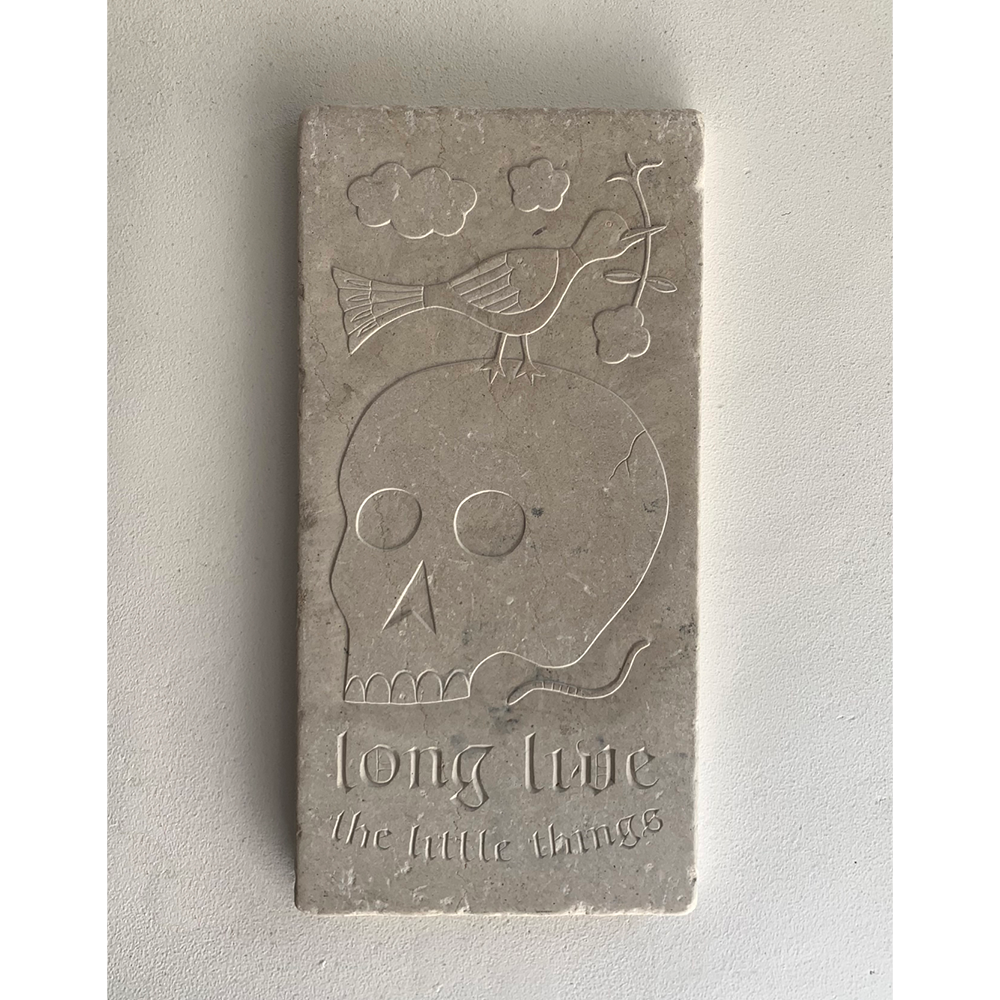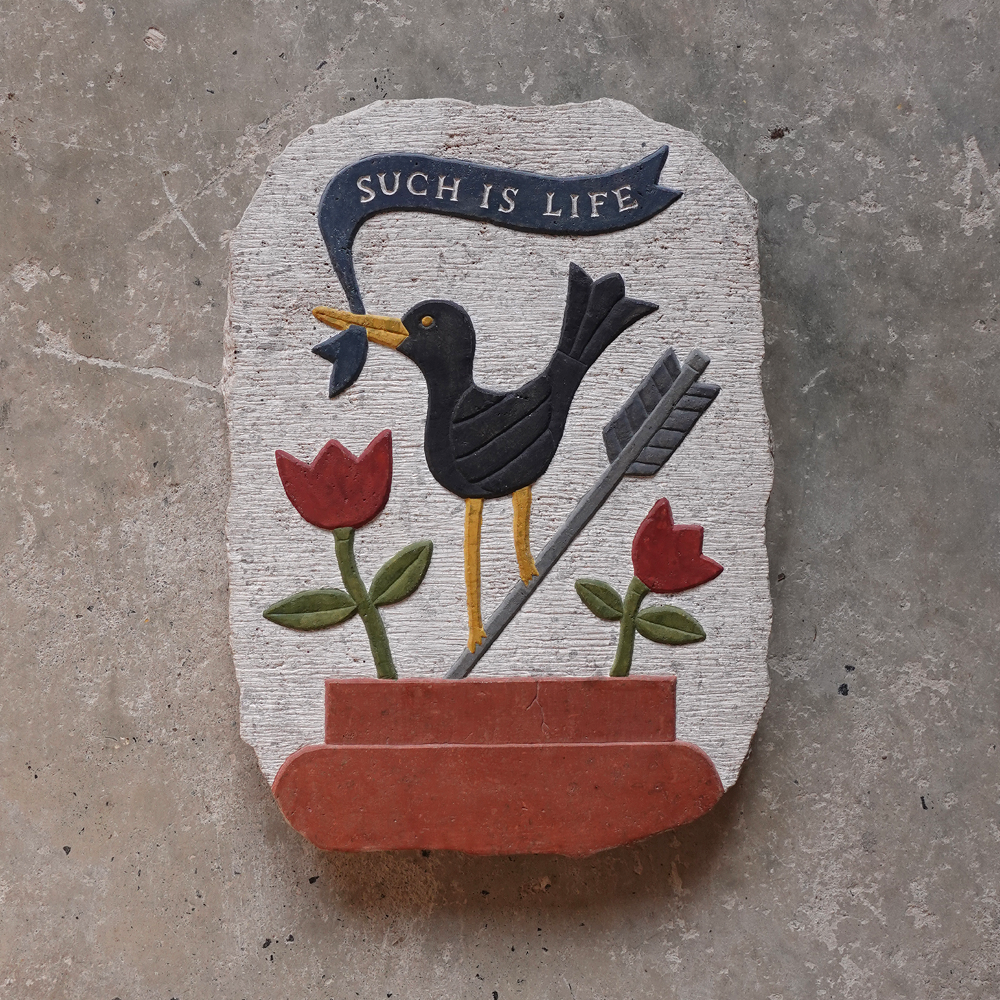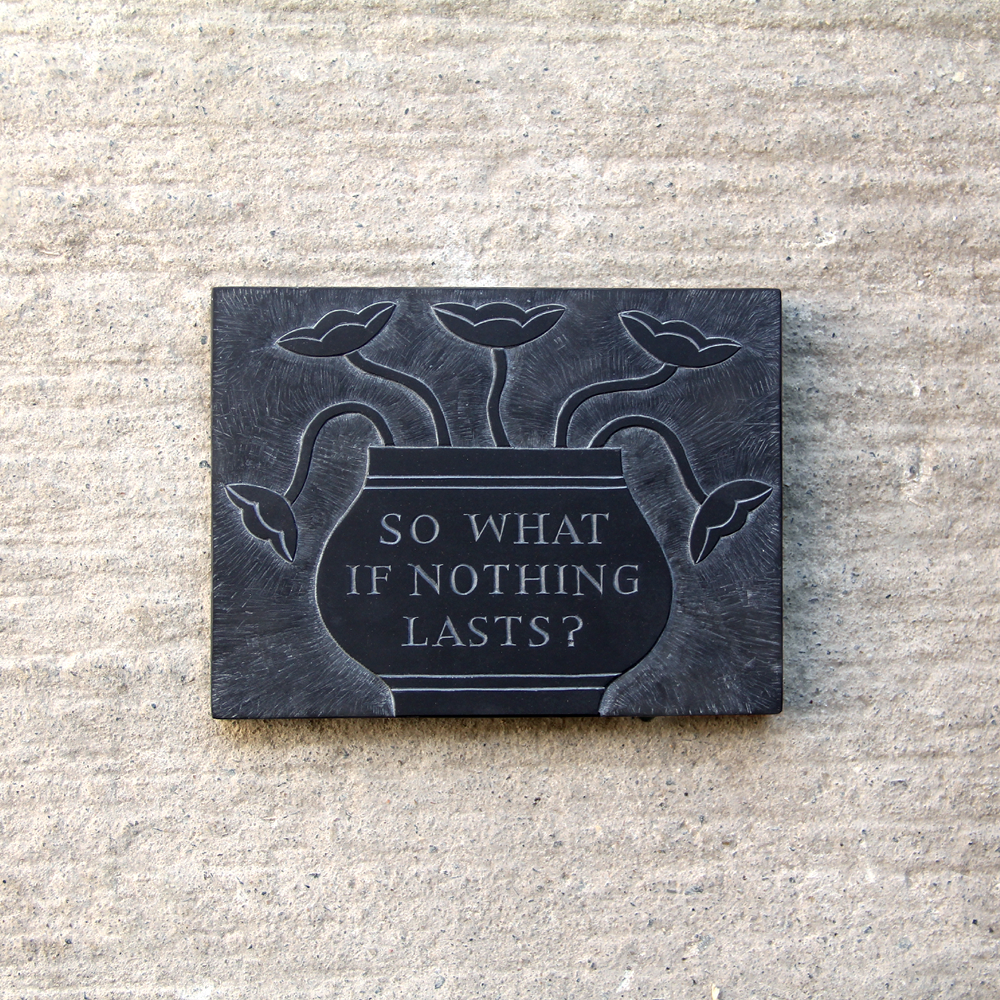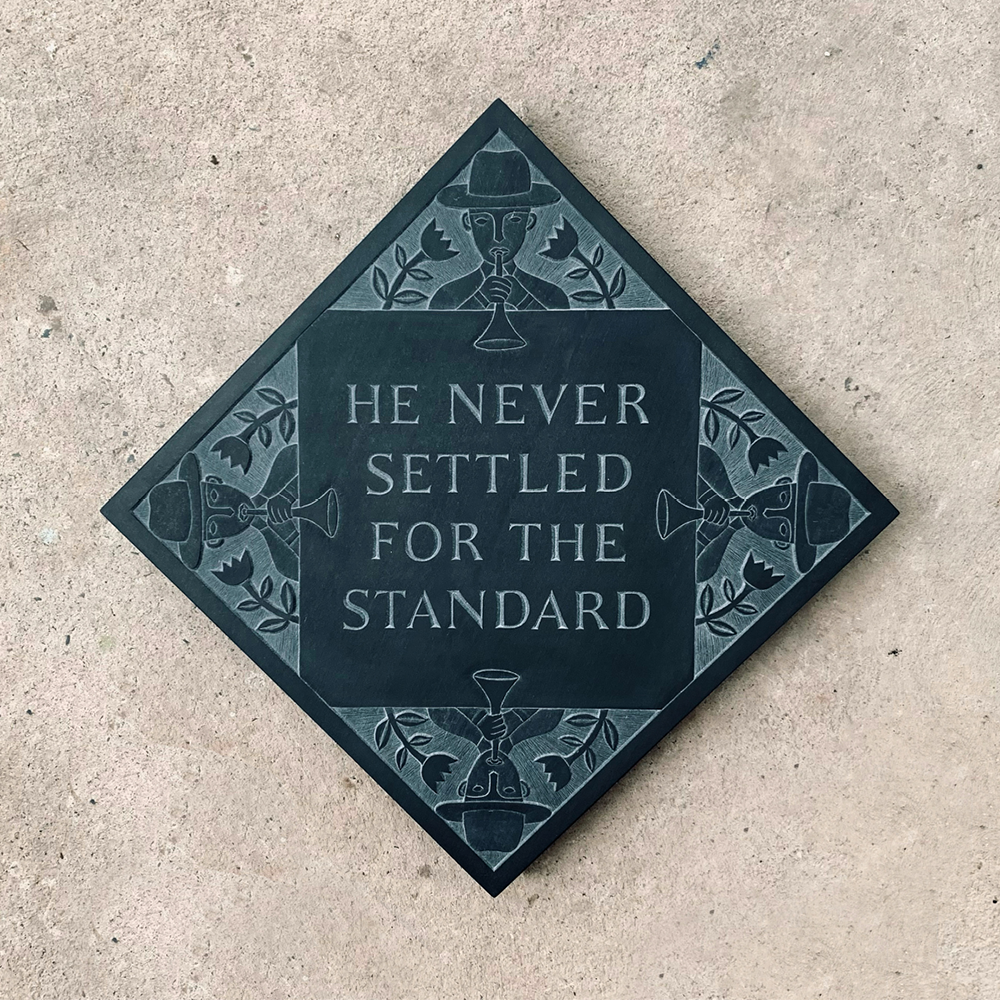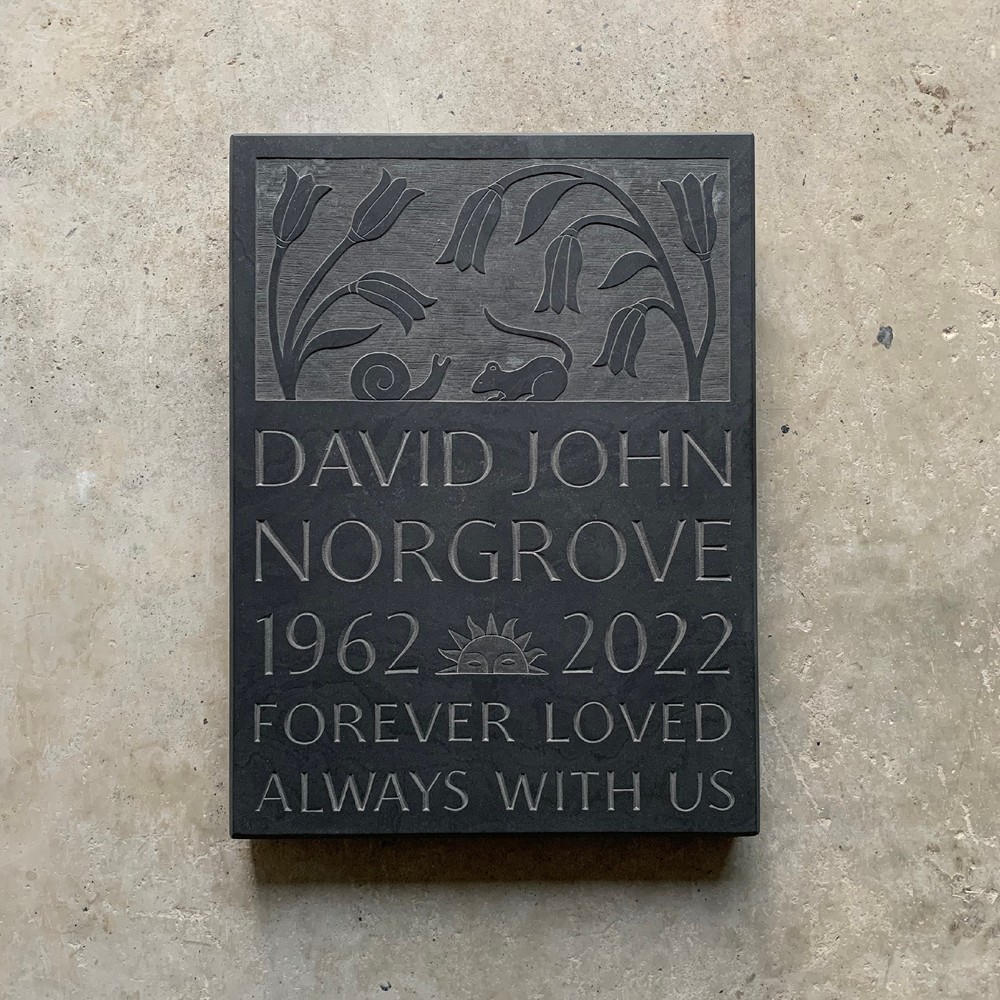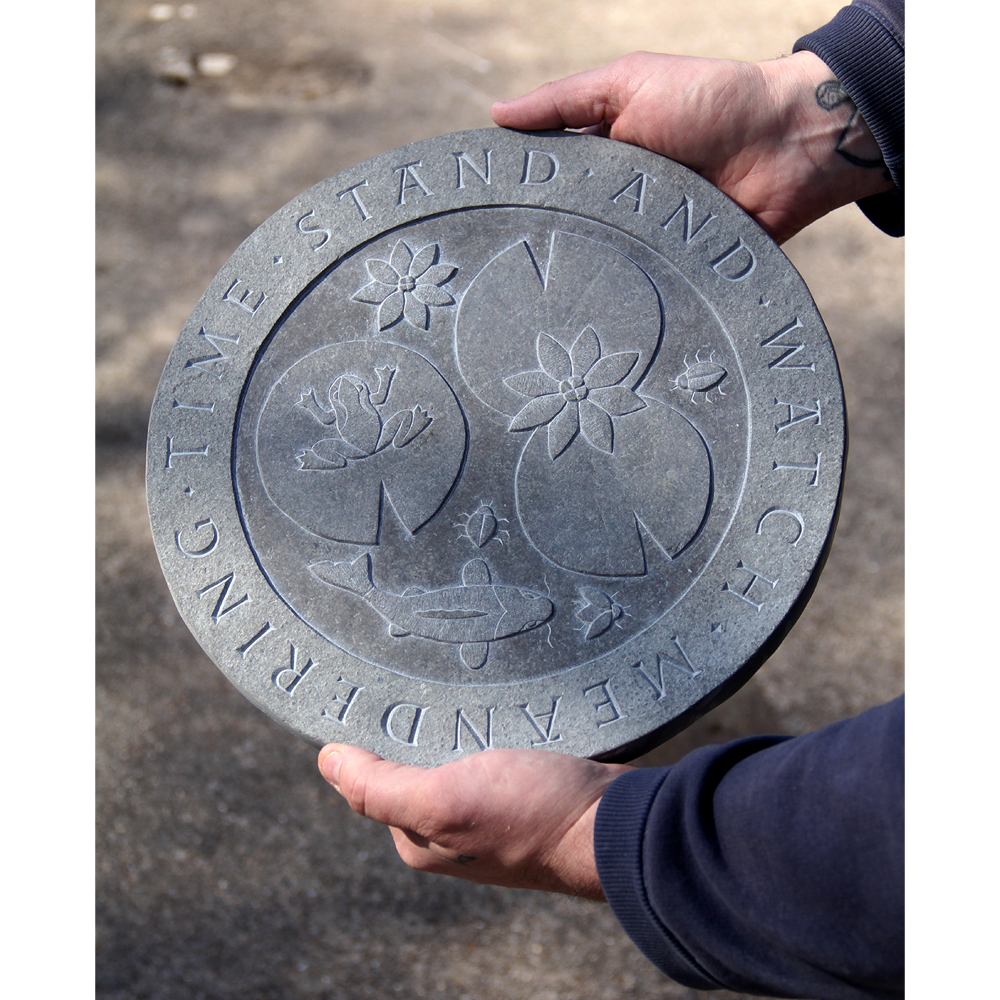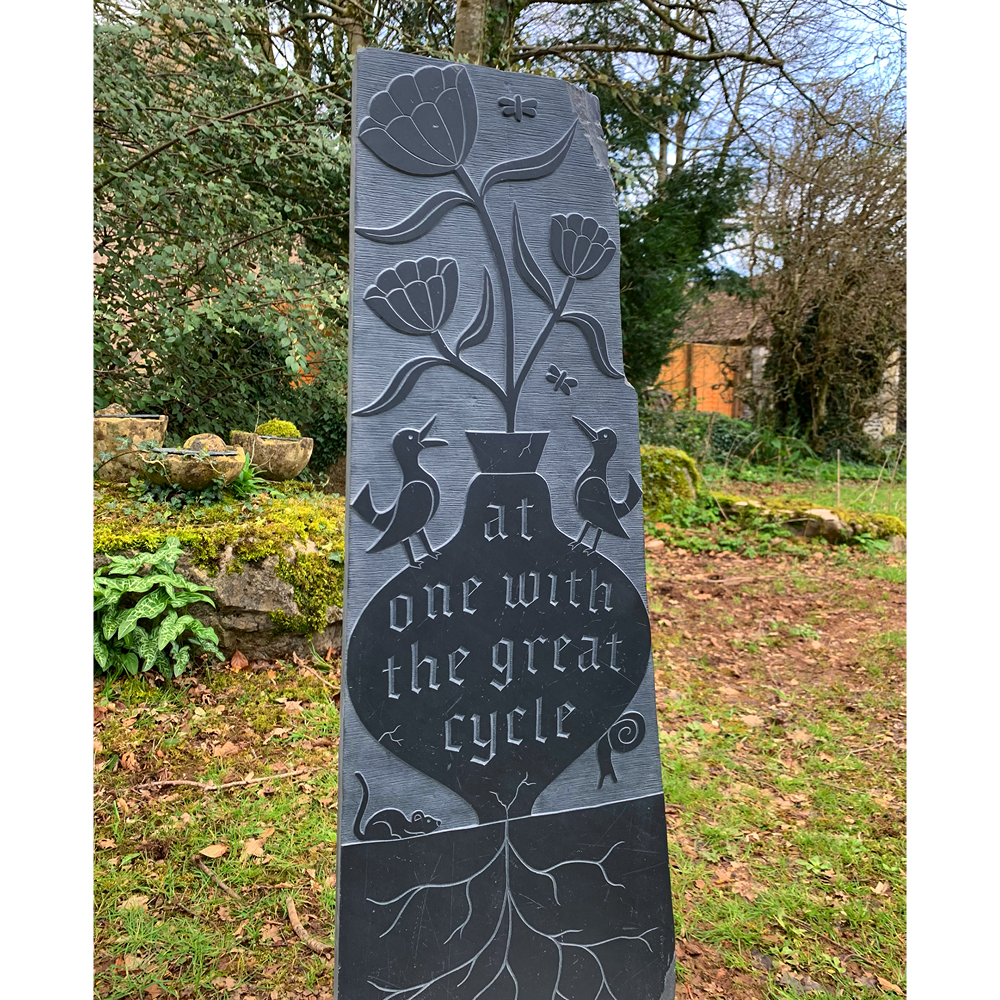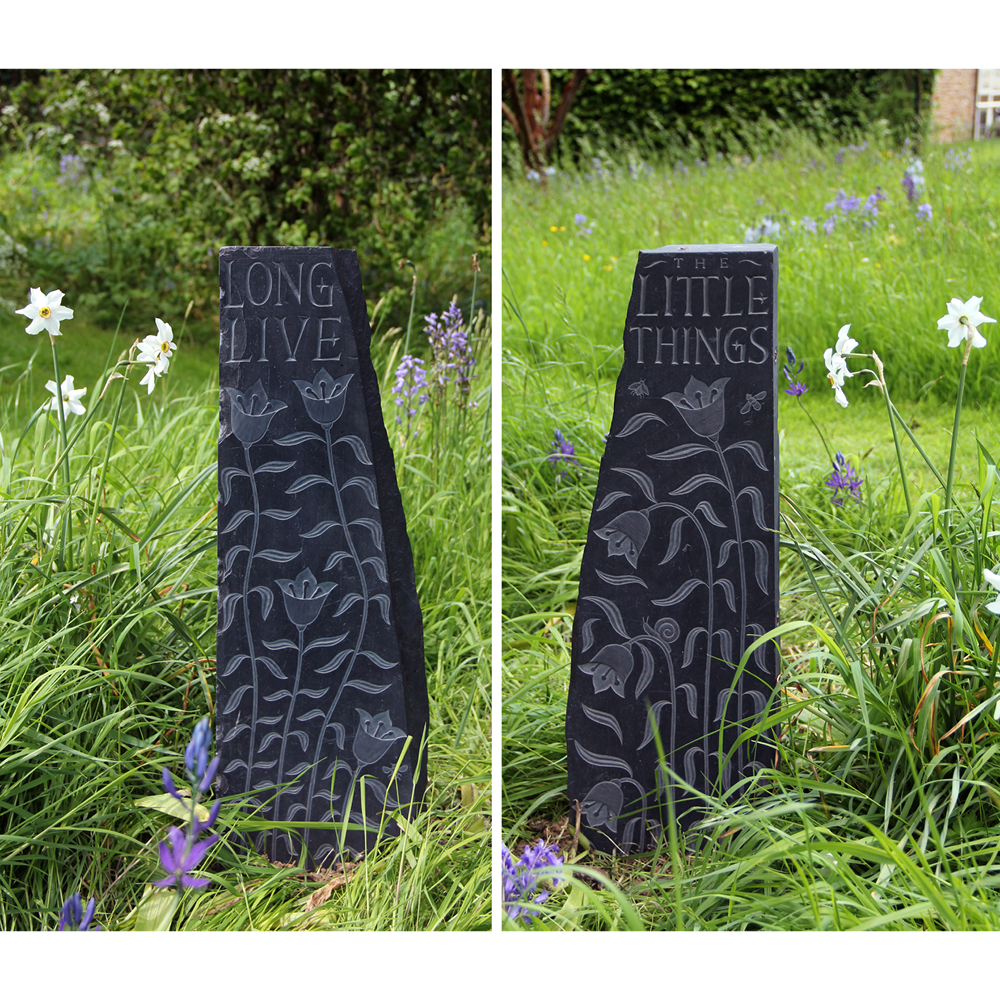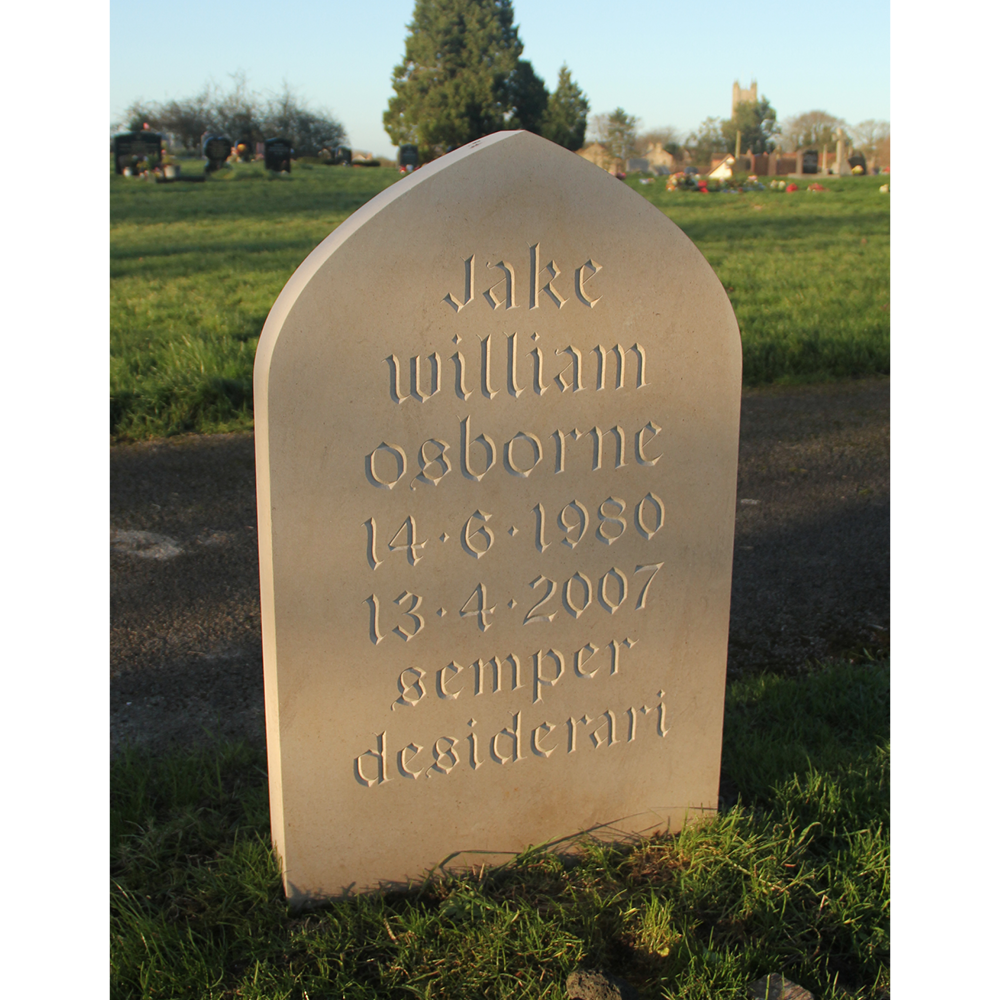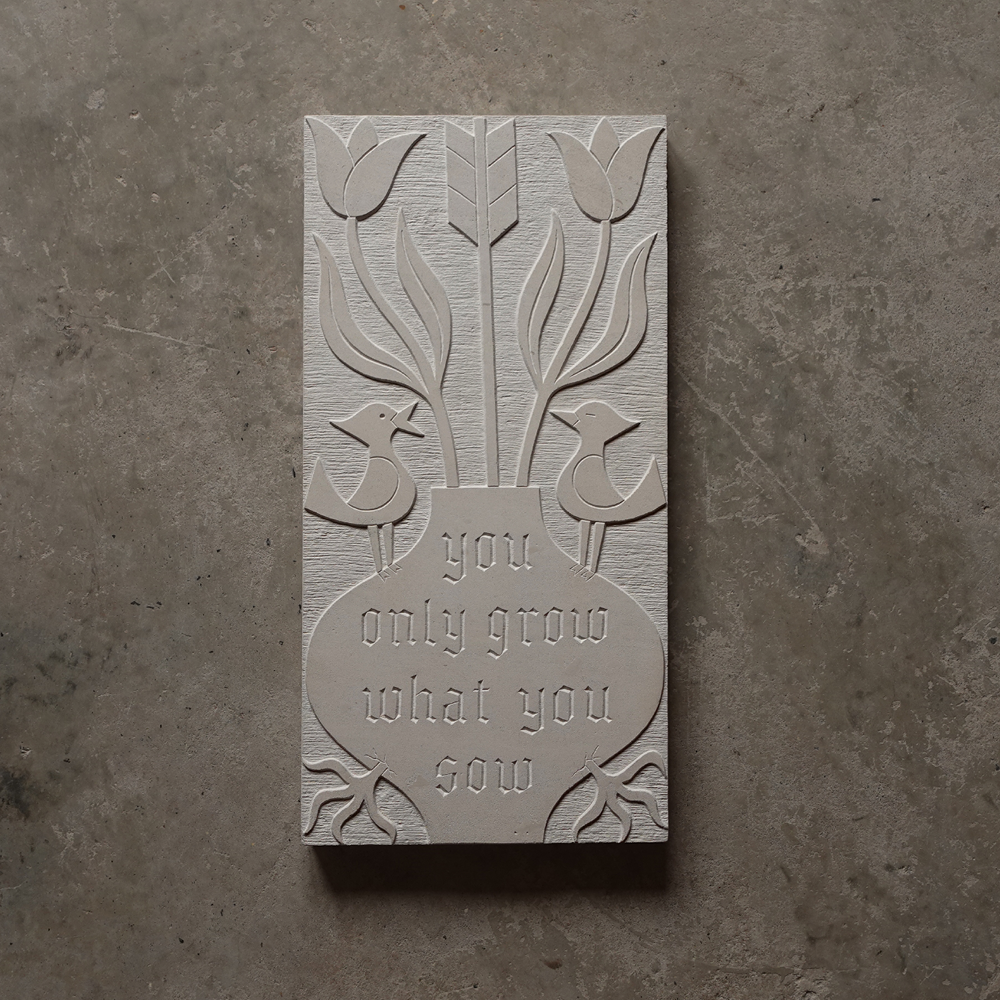
Matt Loughlin is a traditionally trained letter-cutter and stone carver based in Somerset, England. Originally from New York, Matt worked as a graphic designer for over a decade before pursuing a career in craft. In 2020, Matt founded The Memorial Workshop, where he undertakes international commissions for fine art sculpture and bespoke memorials. Recent clients include St. Edmund’s College, Cambridge and the Royal Literary Fund.
Matt’s goal as an artist & craftsperson is to bring an impactful, contemporary voice to the traditional craft of letter-cutting. He strives to explore big-question themes with humour and empathy through a combination of relief carving and original, hand-lettered inscriptions.
Drawing inspiration from a wide variety of sources: everything from historical monuments and folk art to traditional calligraphy and modern art, Matt endeavours to create work that inspires people to pause and reflect and appreciate life – in all its wonder, drama, and complexity.